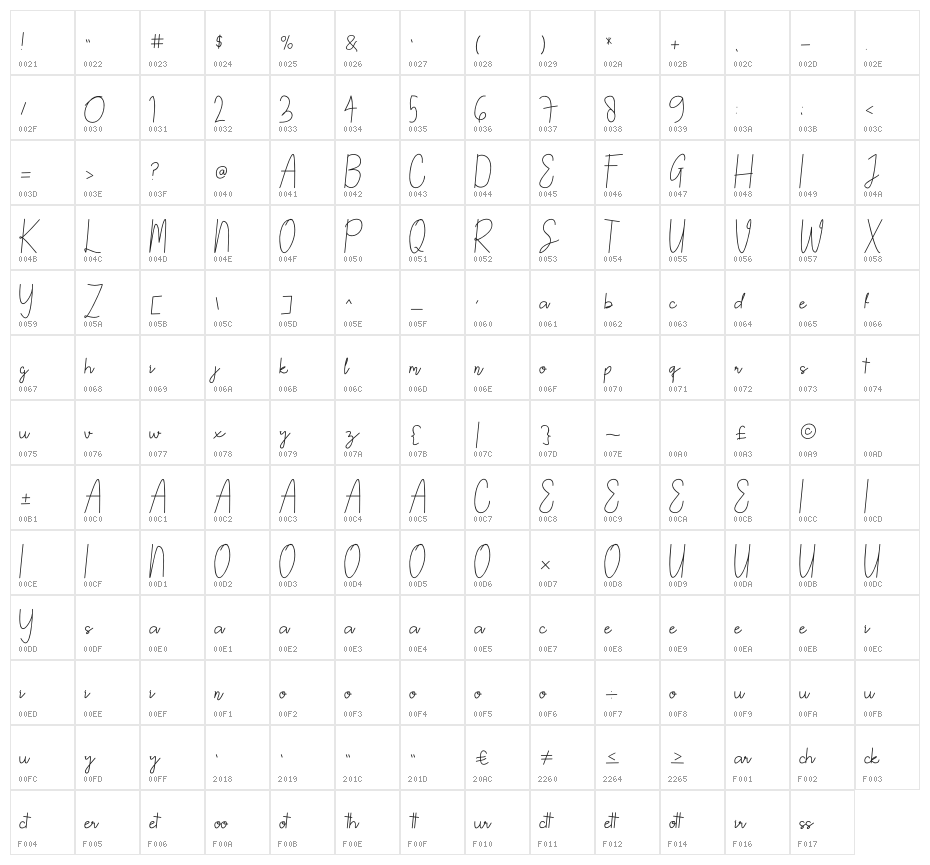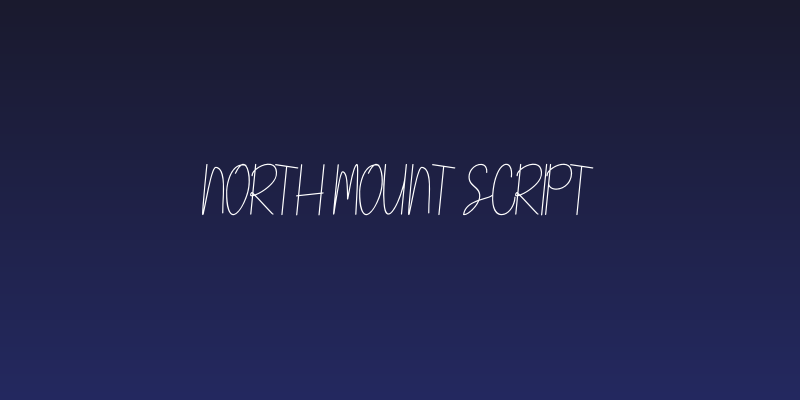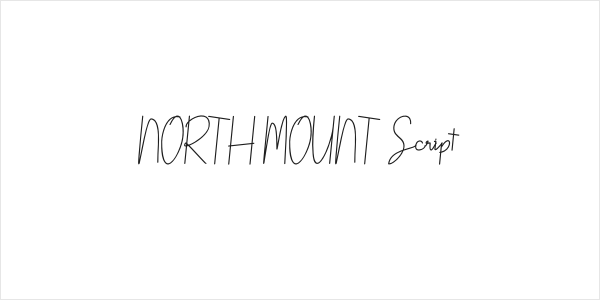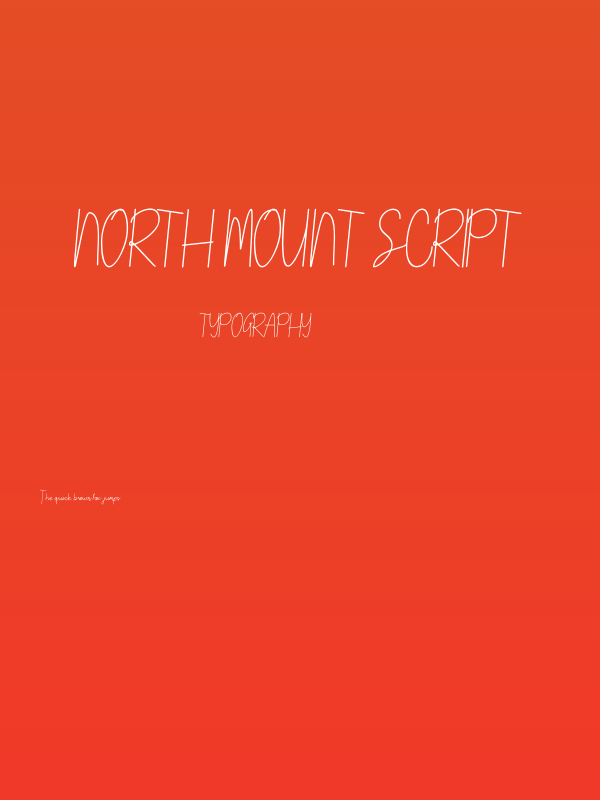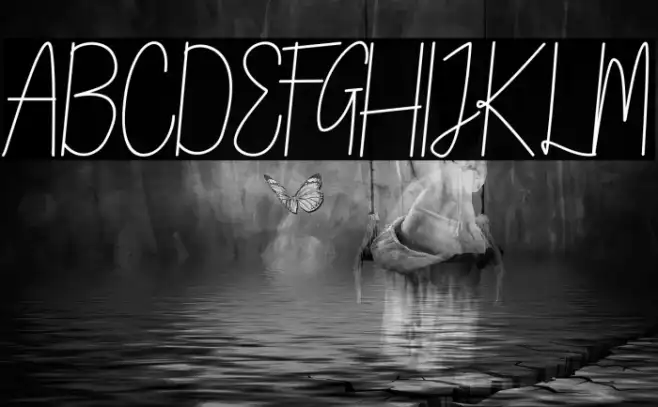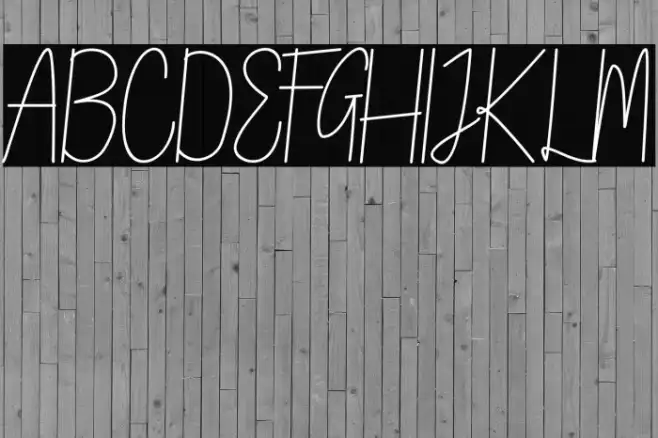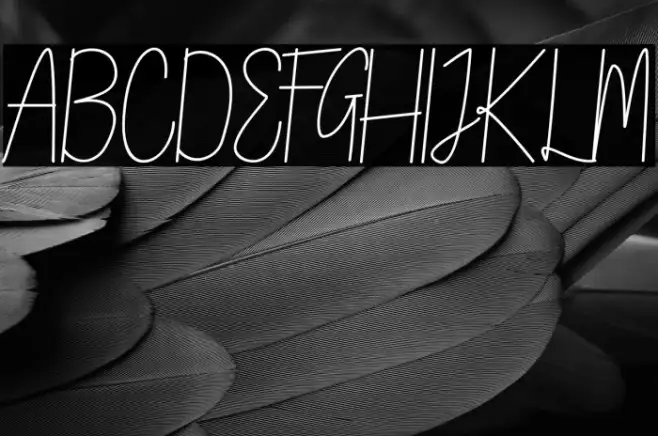
NORTH MOUNT Script Font
NORTH MOUNT Script Description
This font features a unique blend of script and decorative styles, characterized by its tall, narrow uppercase letters and flowing lowercase script. The uppercase letters are elongated with a playful, whimsical touch, while the lowercase letters exhibit a smooth, cursive style that adds elegance and fluidity. The numerals are consistent with the overall style, maintaining a slender and slightly playful appearance. Special characters are designed to complement the font's aesthetic, offering a cohesive look across all glyphs. The font's distinct personality makes it suitable for creative and artistic projects.
| Proposed Projects | Ideal for invitations, greeting cards, branding, and artistic projects requiring a playful yet elegant touch. |